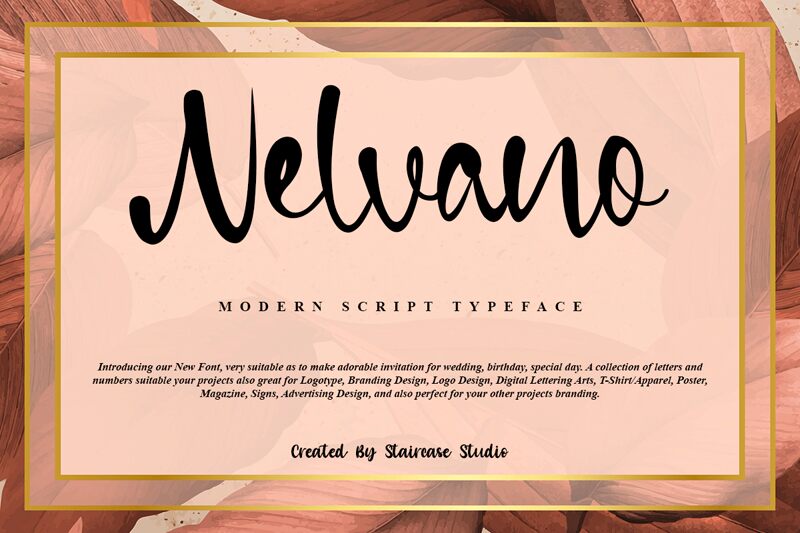
Nelvano
Nelvano is a modern script font designed by Staircase Studio, perfect for adding a touch of elegance to any project. Its semi-light weight gives it a delicate and sophisticated feel that is suitable for a variety of projects, from wedding invitations to business cards. The smooth curves and flowing lines of Nelvano make it an excellent choice for branding materials, logos, and packaging designs. This font will add a touch of class to your next project, whether you're designing an ad campaign or creating custom merchandise. Let Nelvano elevate your design game with its refined and stylish aesthetic.